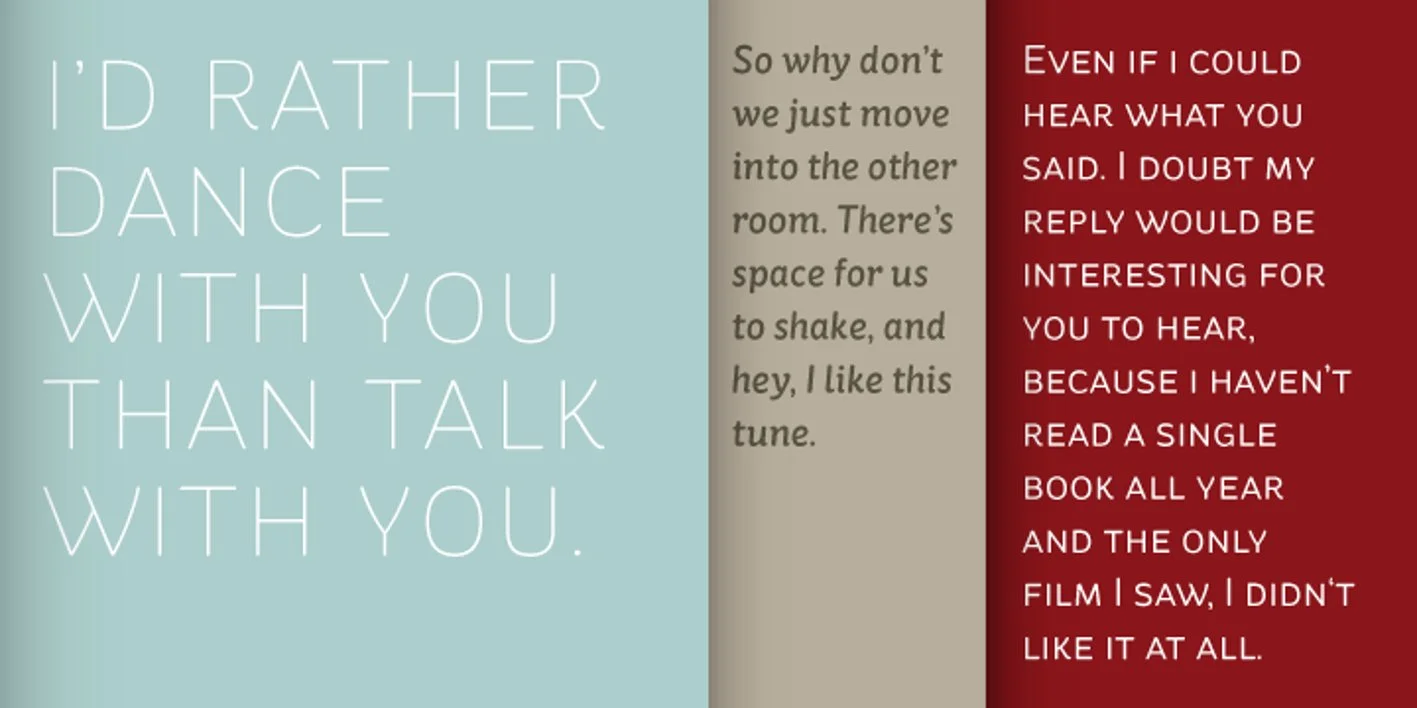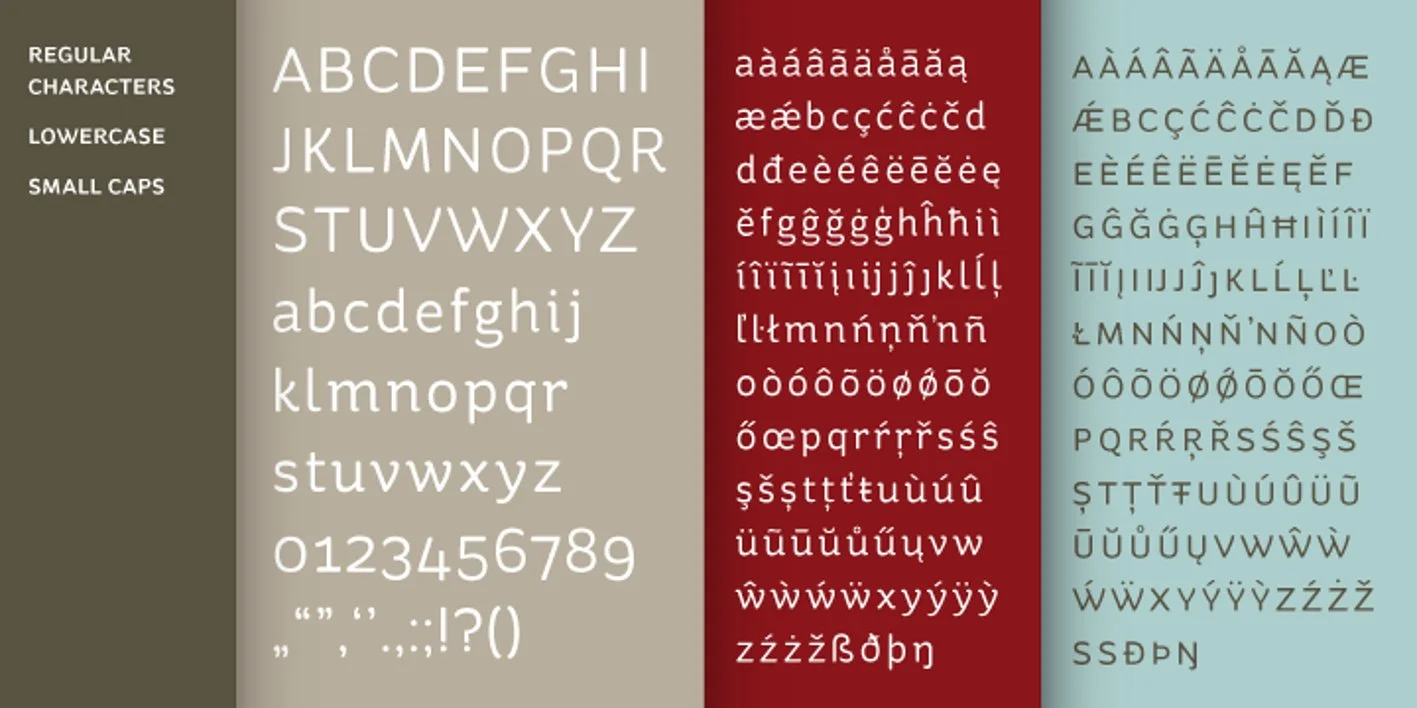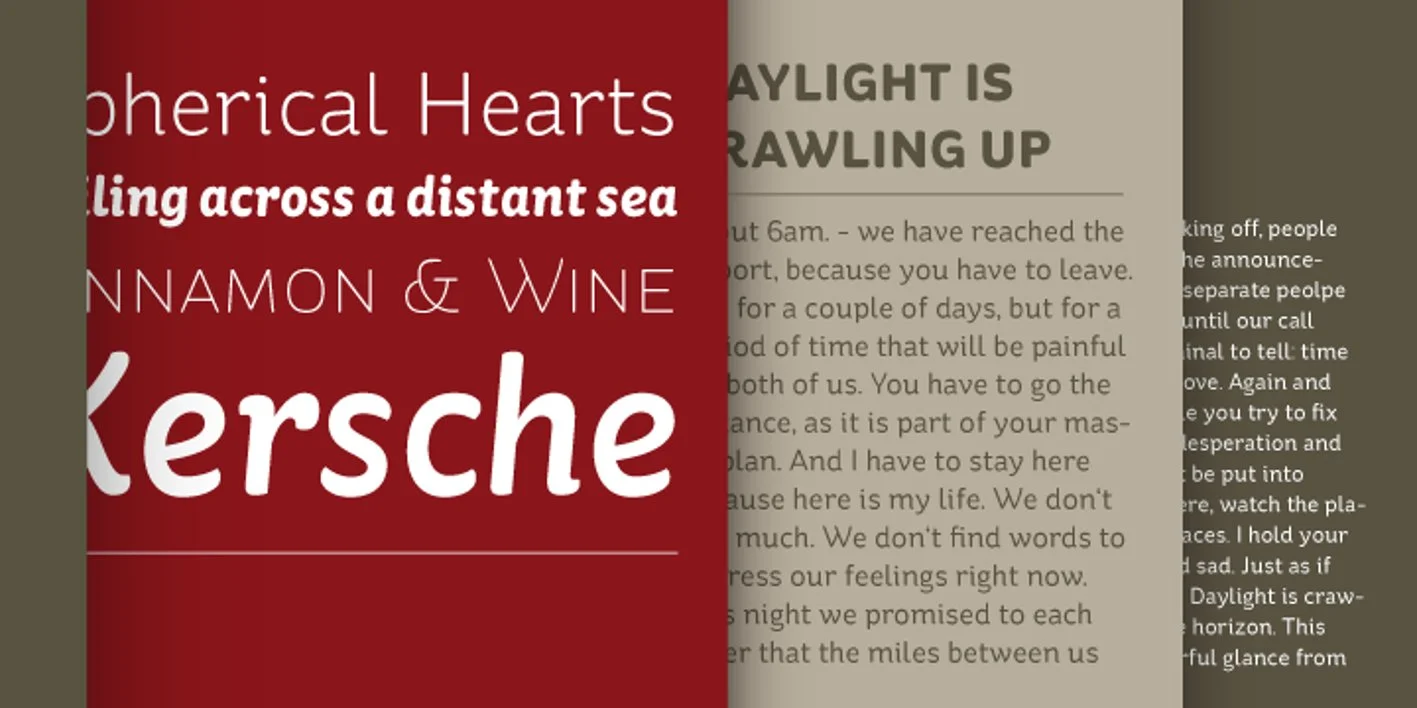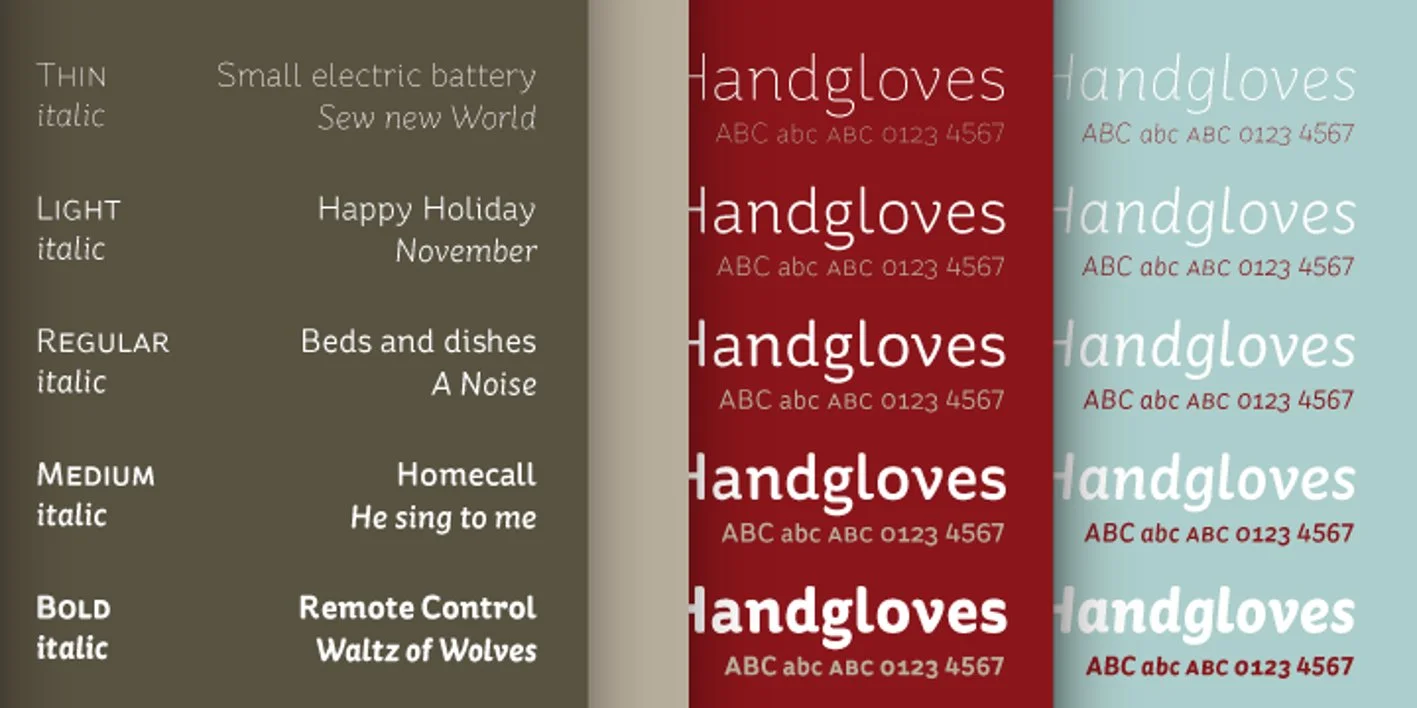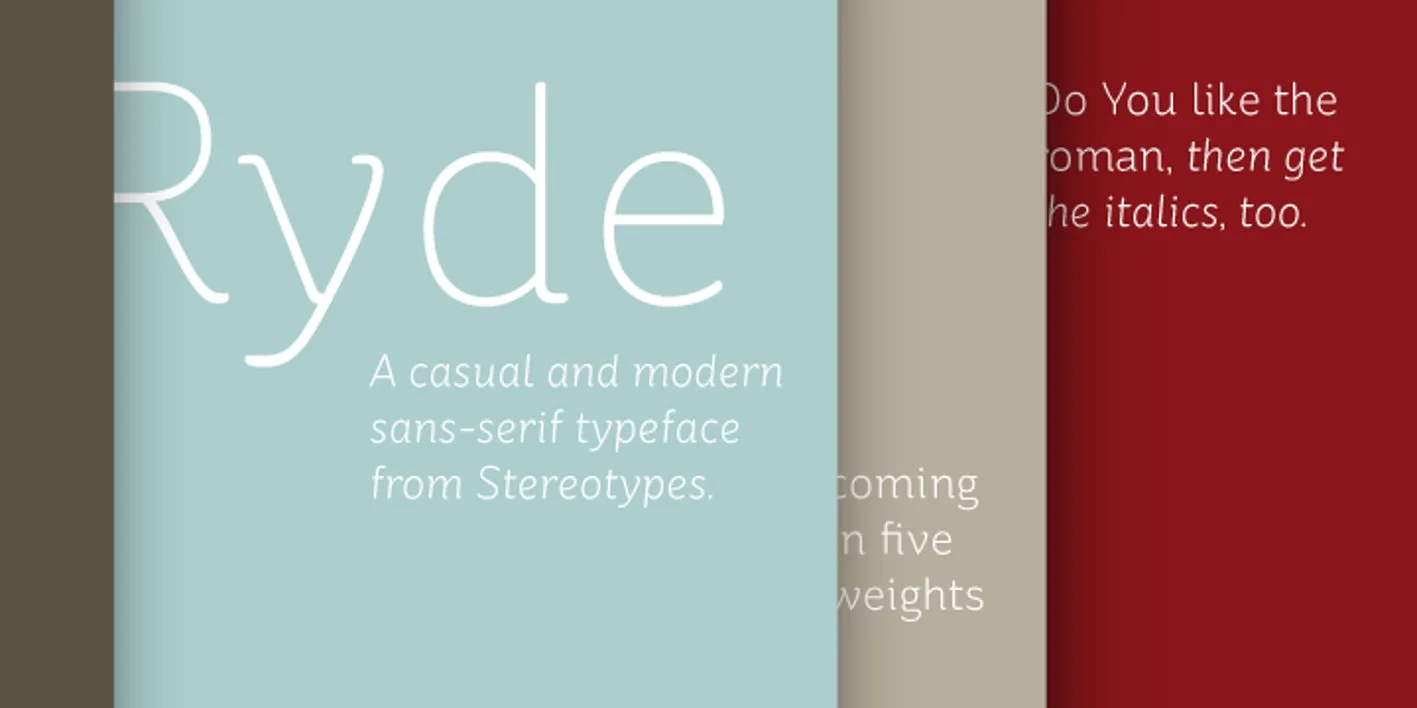
St Ryde Font
There is a particular satisfaction in finding a typeface that delivers optical balance across all weights without compromise. St Ryde consistently provides it. The typeface brings a versatile sensibility to a broad range of creative disciplines, with versatility across print and screen contexts that holds up whether the work is print-first or screen-first.
In practice, St Ryde proves particularly effective for product labels, poster creation, editorial layouts, environmental graphics, brand identity systems. Designers reaching for it find that the type decisions feel resolved rather than laboured — a useful quality when client timelines are tight.
The range of applications extends to packaging design, web design, logo design, annual reports. That breadth is deliberate: the proportions and spacing were stress-tested across a wide range of mock briefs before the typeface was finalised.
Pairing St Ryde with a contrasting serif or a neutral grotesque gives mixed-format layouts a clear visual grammar without requiring constant size adjustments to establish hierarchy.
Graphic designers working on identity systems find St Ryde a reliable choice for projects that demand both personality and restraint. The design avoids the self-conscious quirkiness that dates quickly, settling instead for considered distinctiveness that holds up over time.